Lettermatic
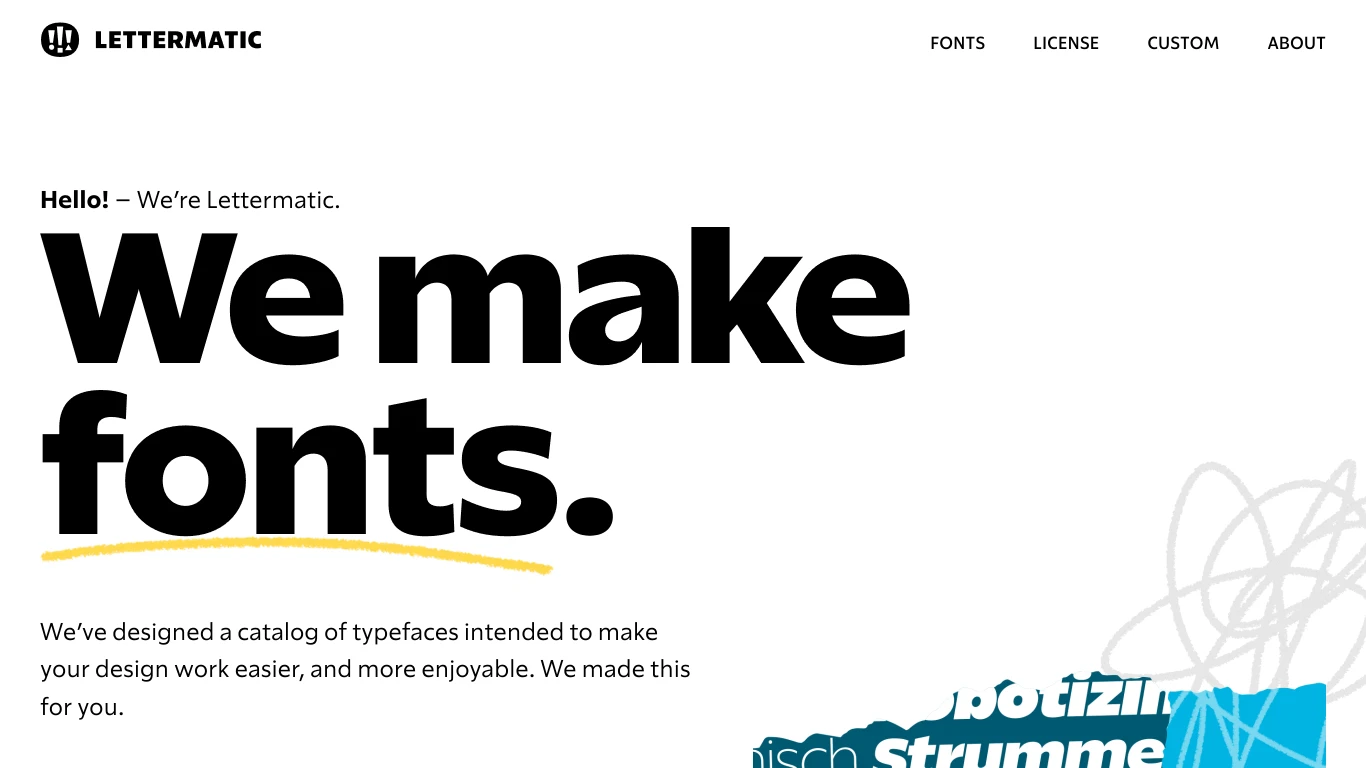
Lettermatic is a type foundry established in 2020 by Riley Cran, with a team including Heather Cran, Danelle Cheney, Margaret Penney, and Jane Solomon. The foundry specializes in creating typefaces that blend historical influences with contemporary design, offering both retail and custom fonts. Notable typefaces from Lettermatic include Really Sans, Parclo Serif, and the Monaspace series. Their work has been utilized by clients such as Dropbox, Yale, Starbucks, Microsoft, Google, Condé Nast, and Deutsche Telekom.